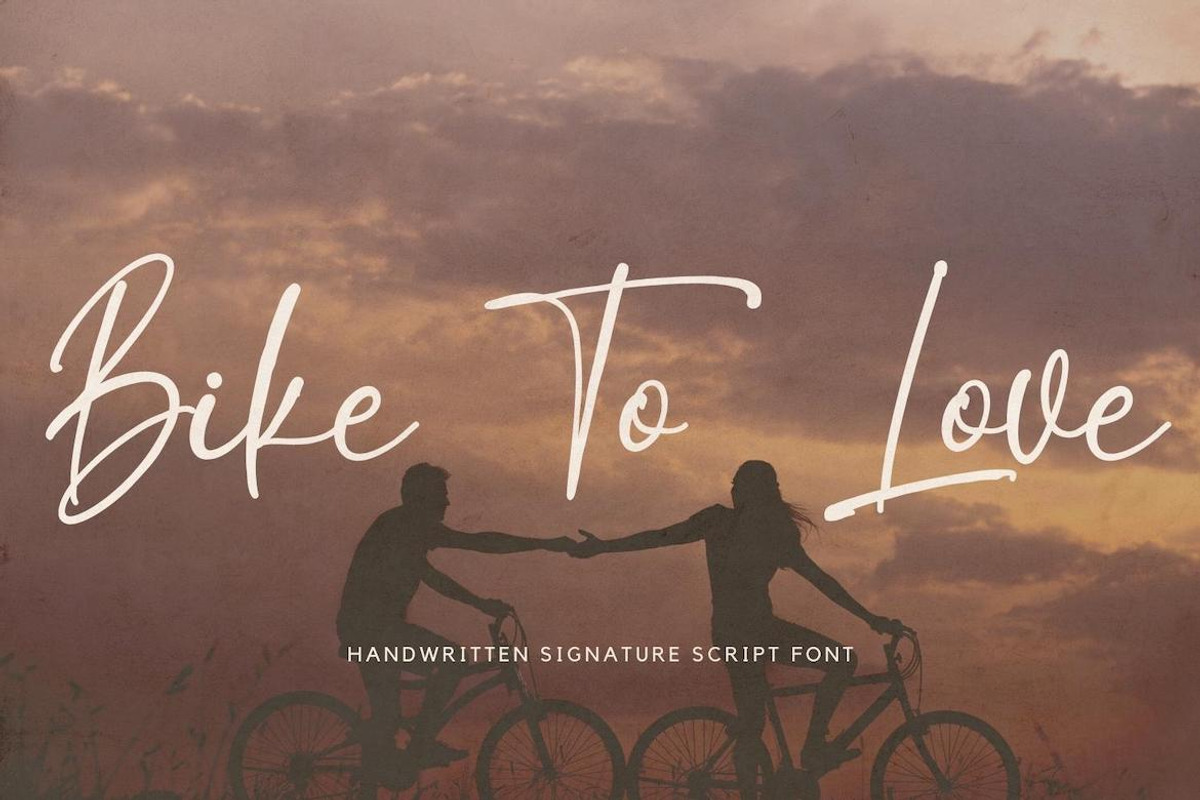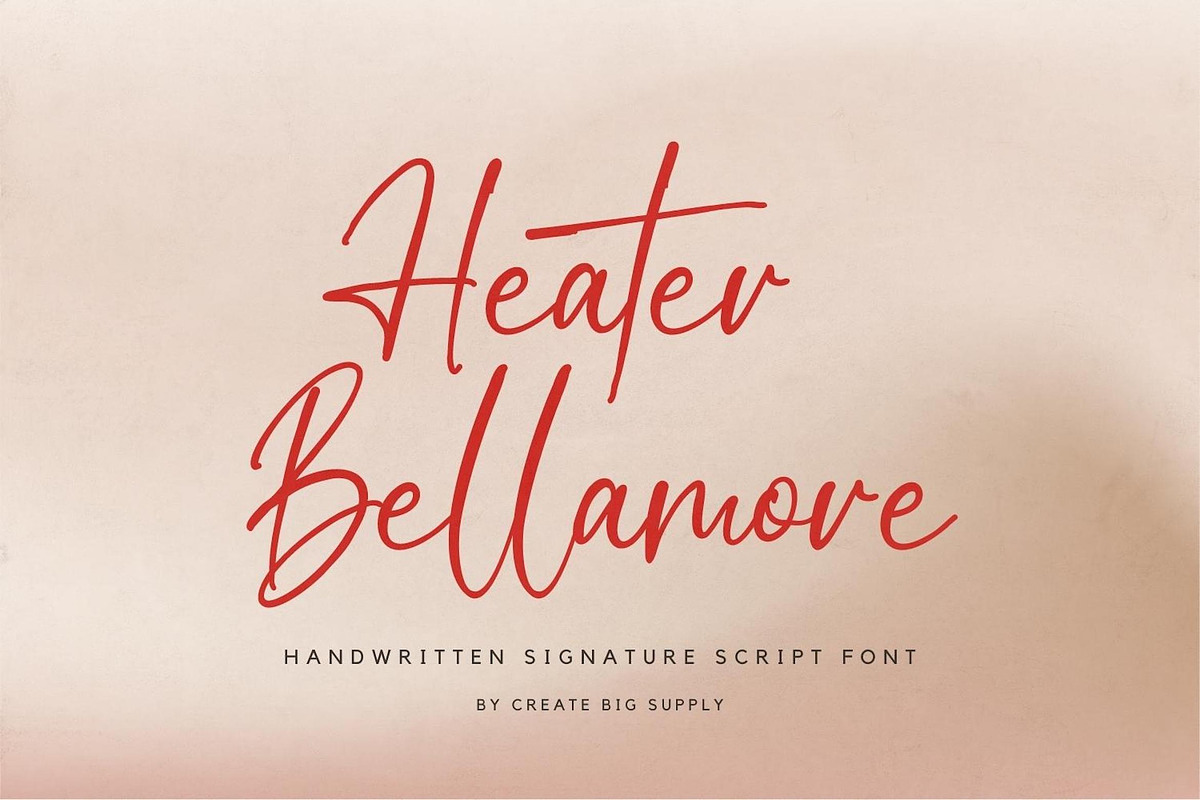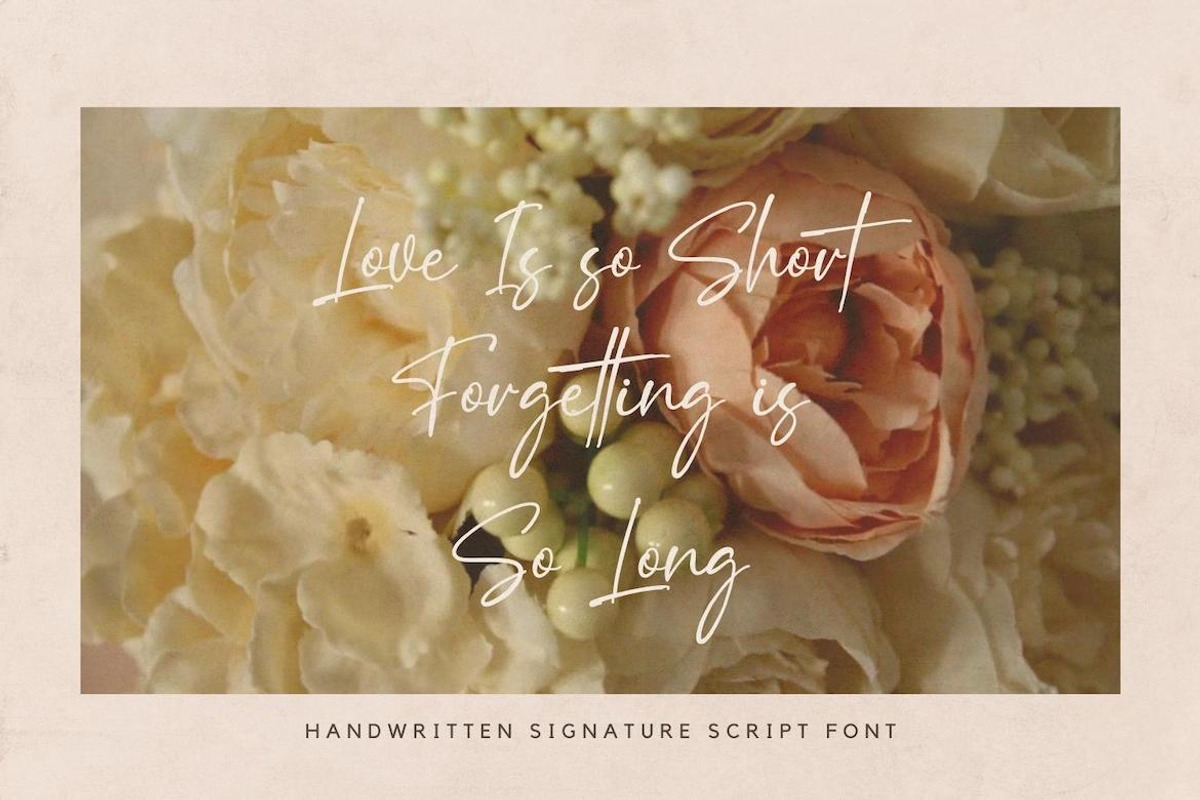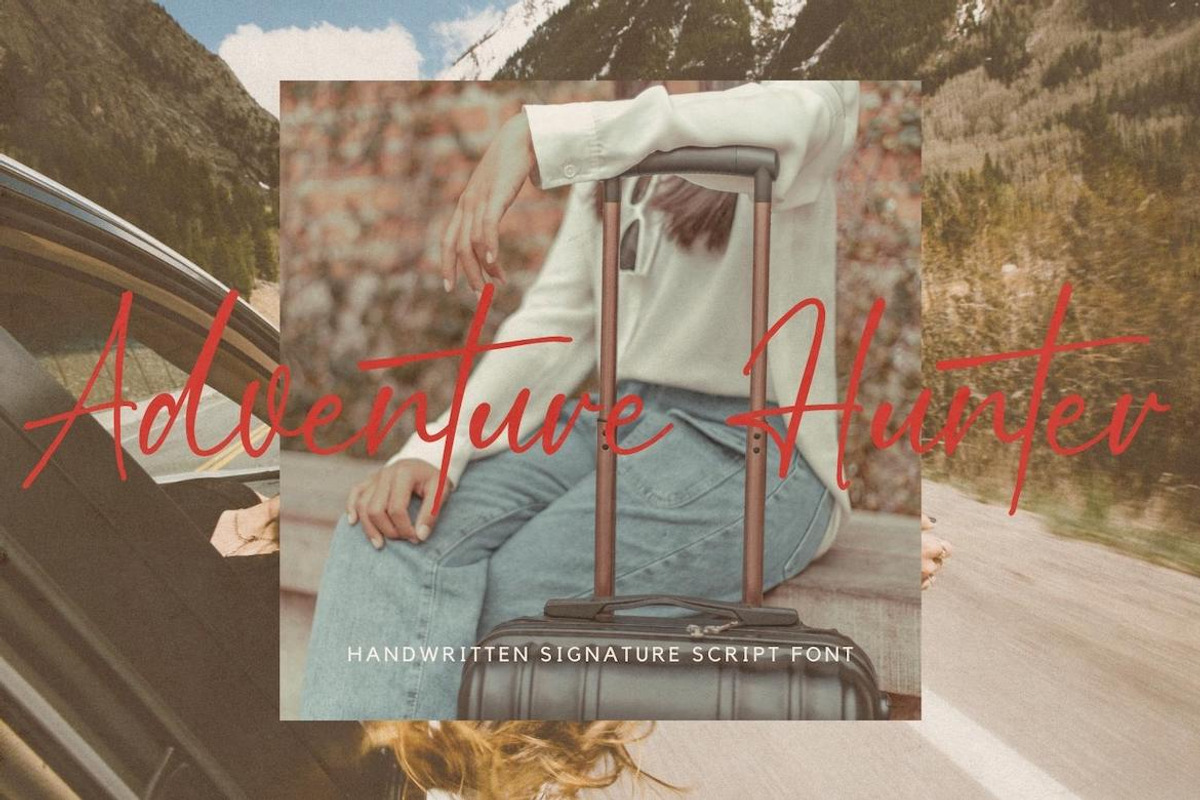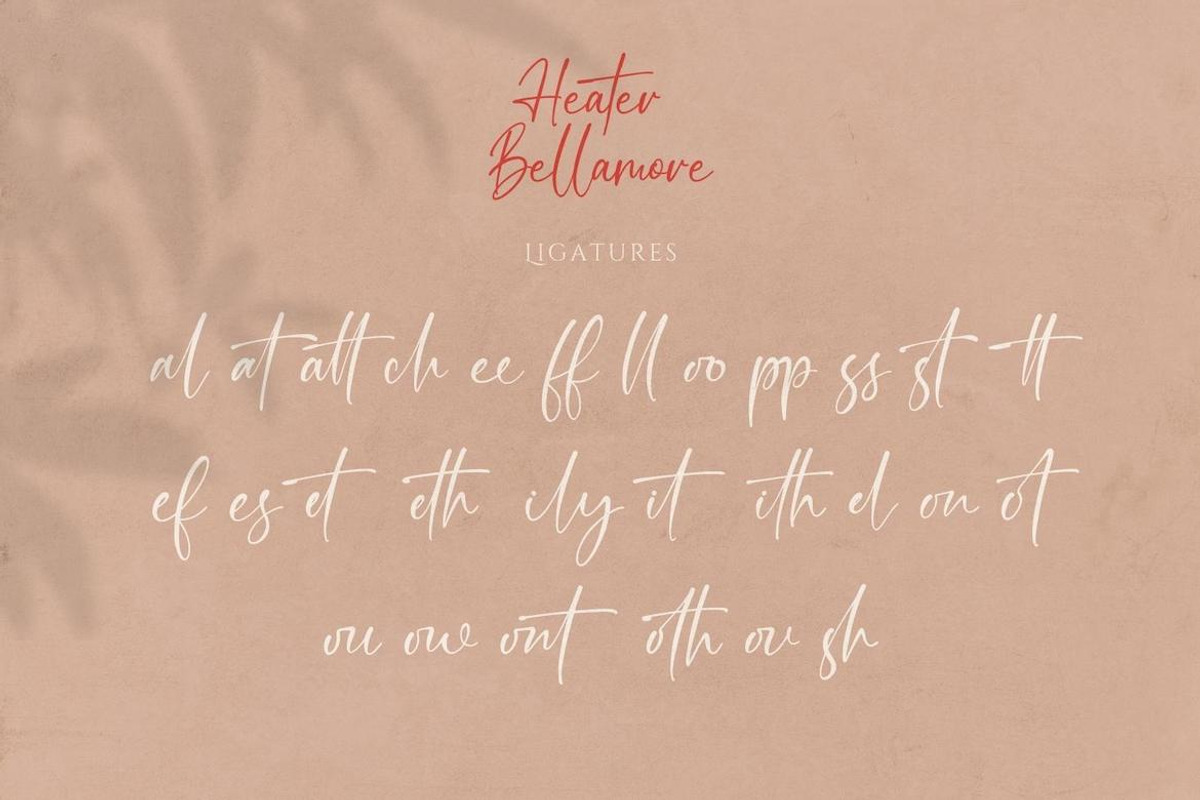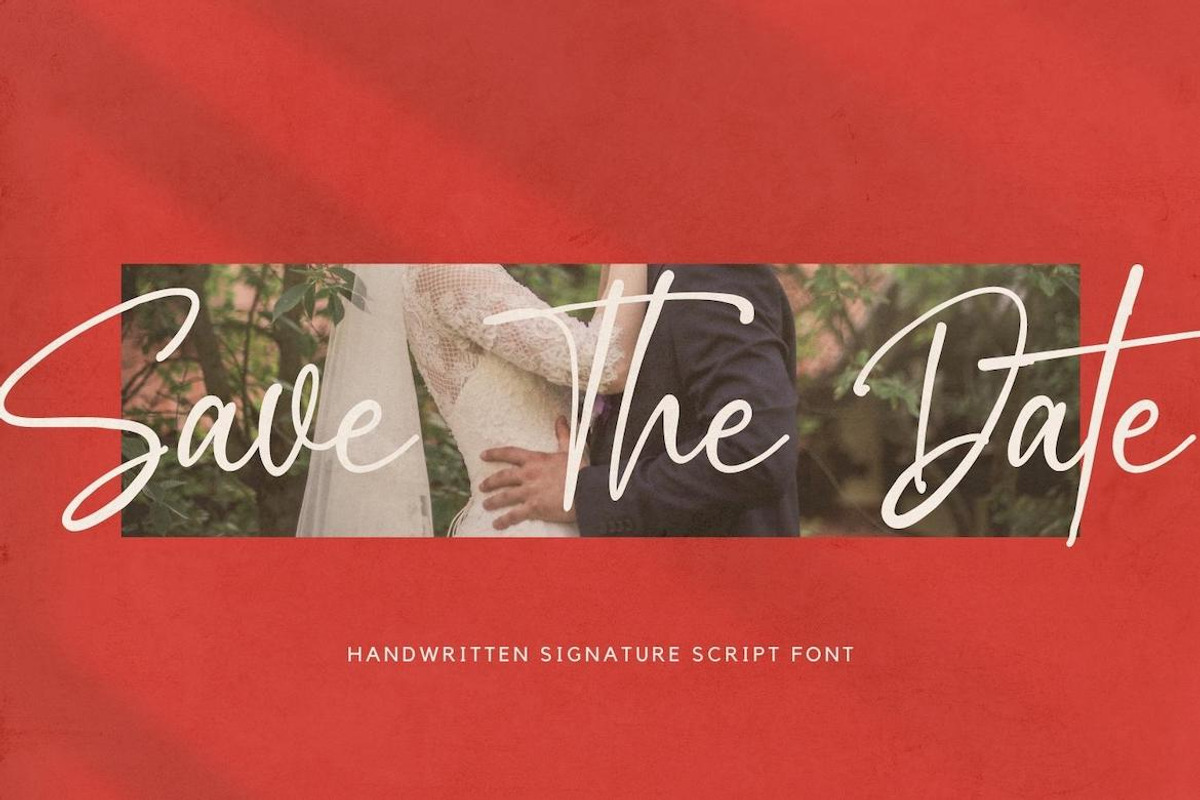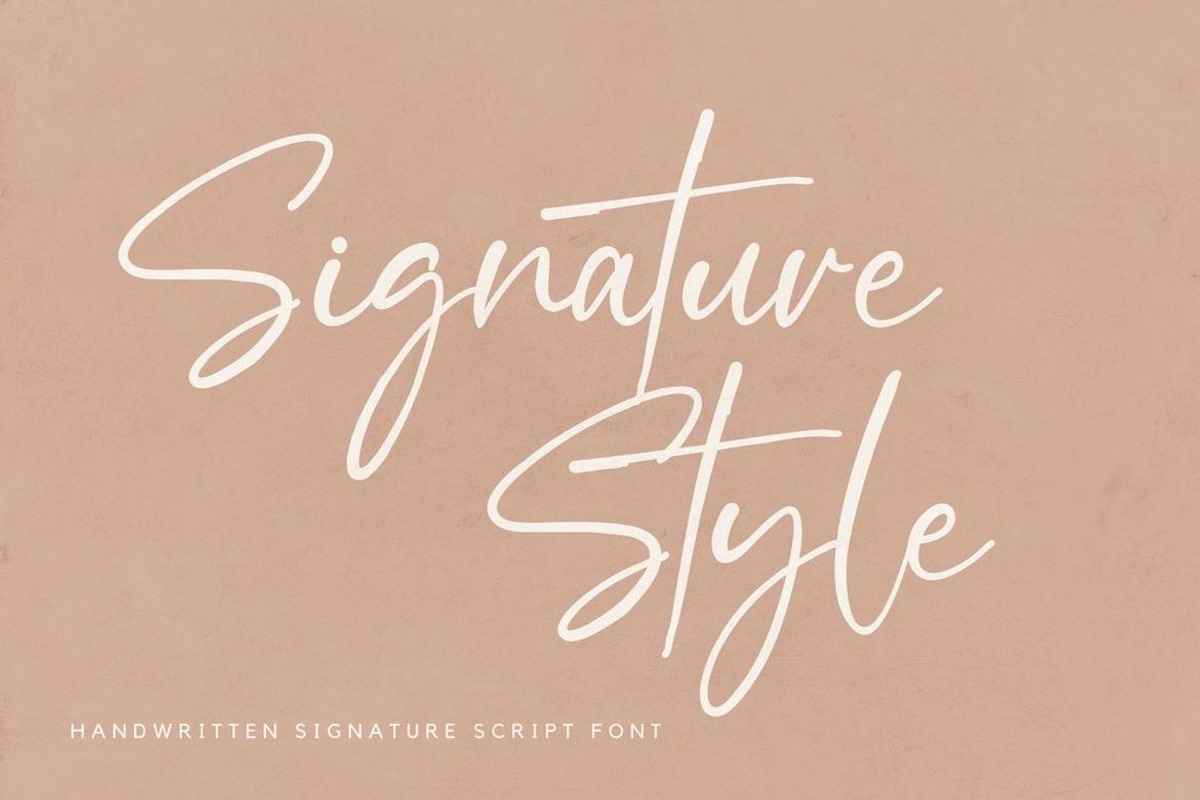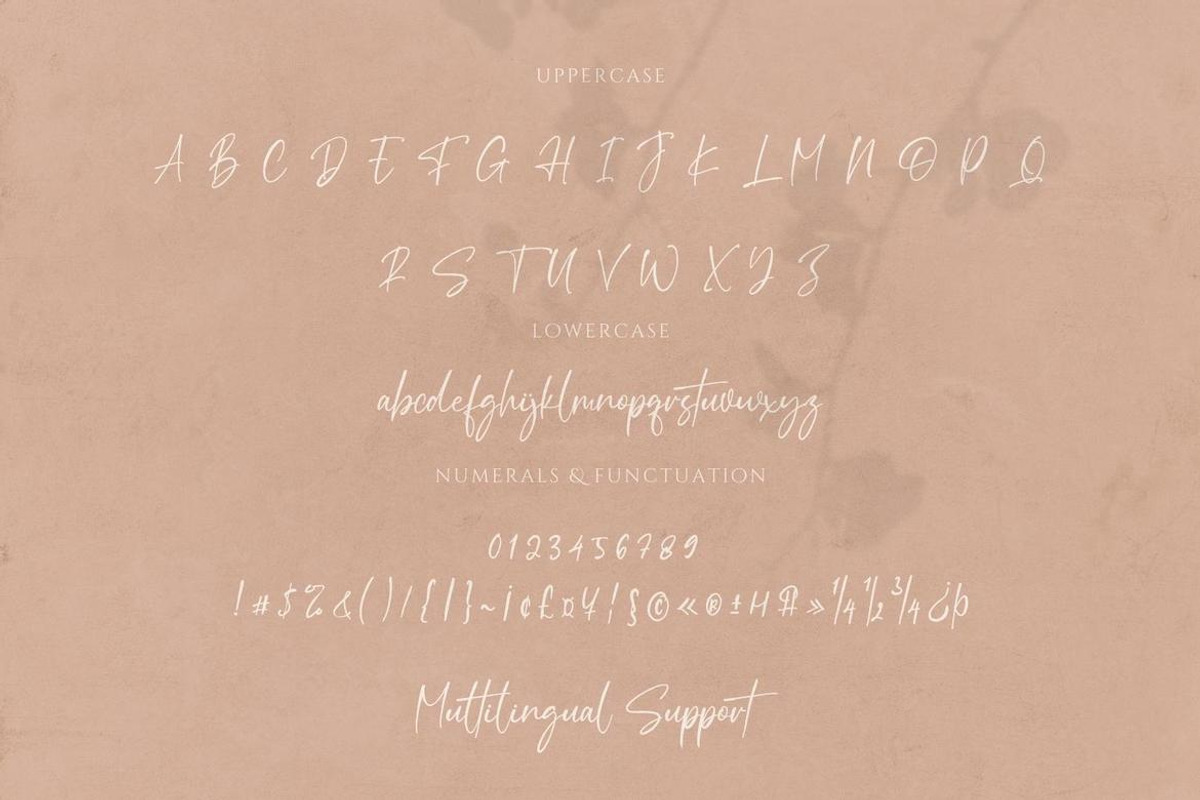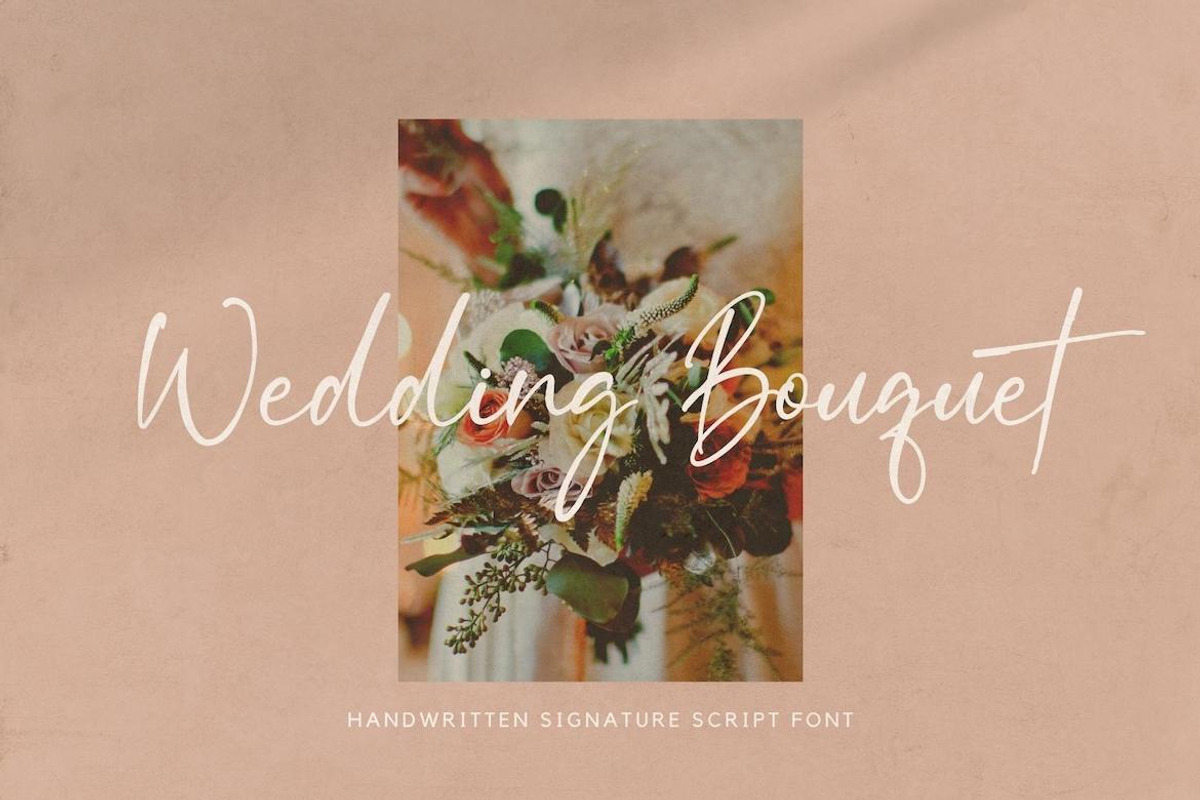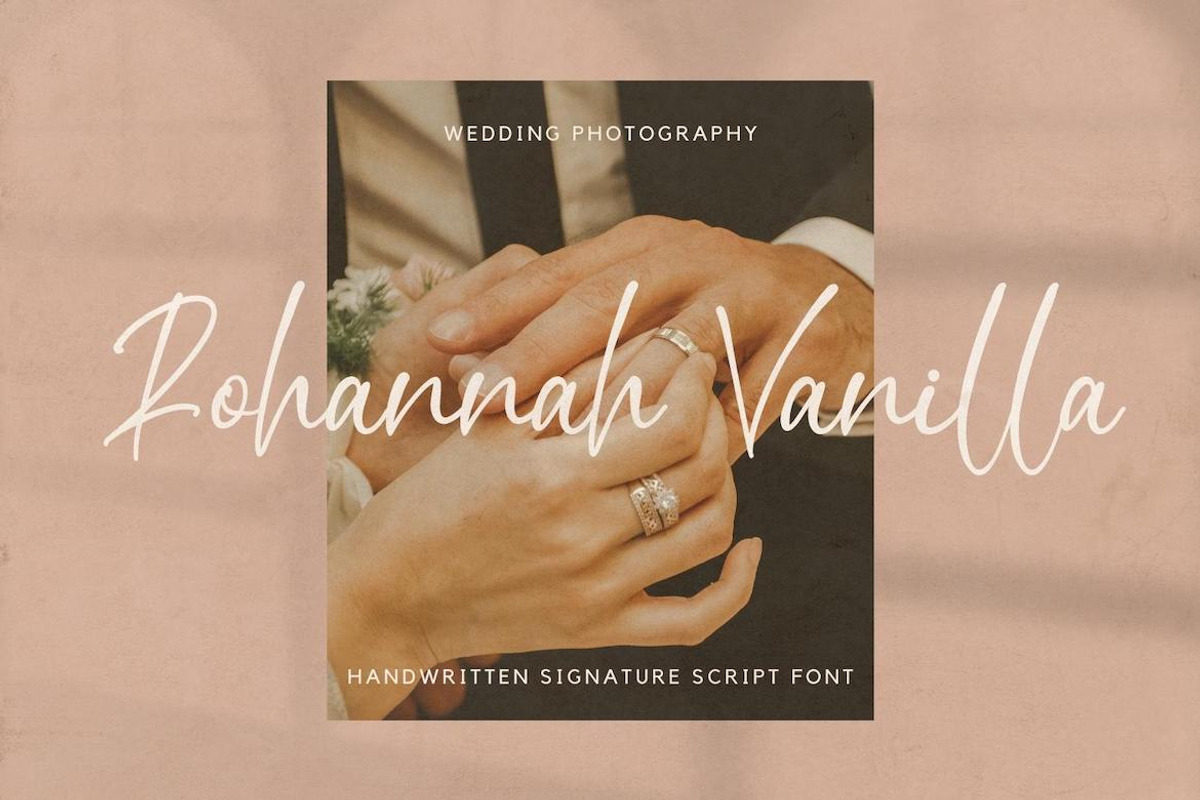
Heater Bellamore Signature Handwriti
Introducing Heater Bellamore, a stunning script signature handwriting font that adds a personal and unique touch to your projects. With its elegant and flowing strokes, this font is perfect for creating signatures, logos, and more. Heater Bellamore Script Signature Handwriting Font offers a wide range of features to enhance your designs. It includes both uppercase and lowercase letters, numbers, and punctuations, ensuring versatility and creative freedom. The font is also multilingual, allowing you to cater to a global audience. Explore the beauty of ligatures and enjoy the convenience of PUA encoding, which enables easy access to special characters. Download the Heater Bellamore Script Signature Handwriting Font now and unlock the potential of signature and handwriting styles in your various projects.